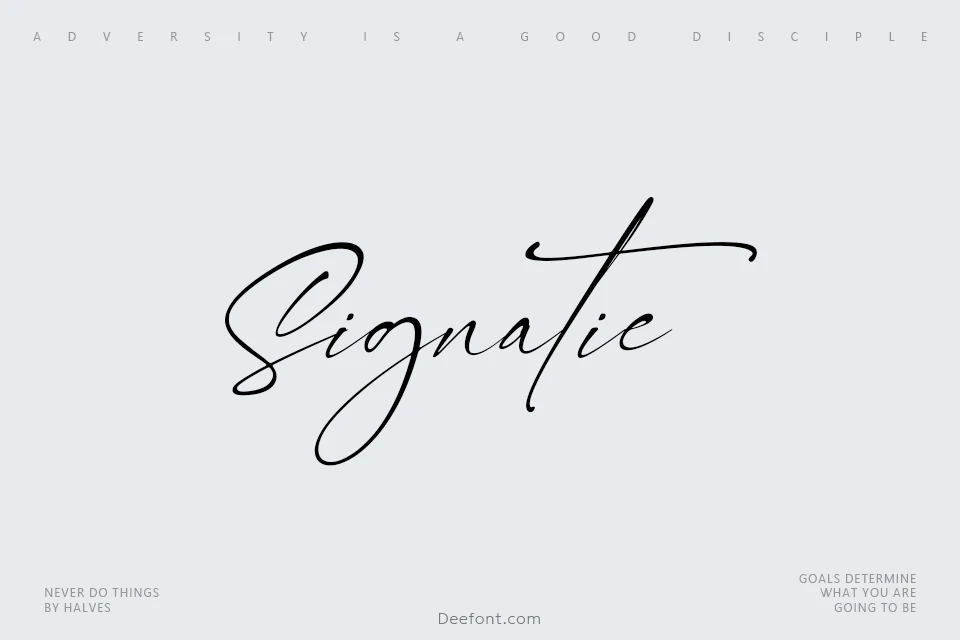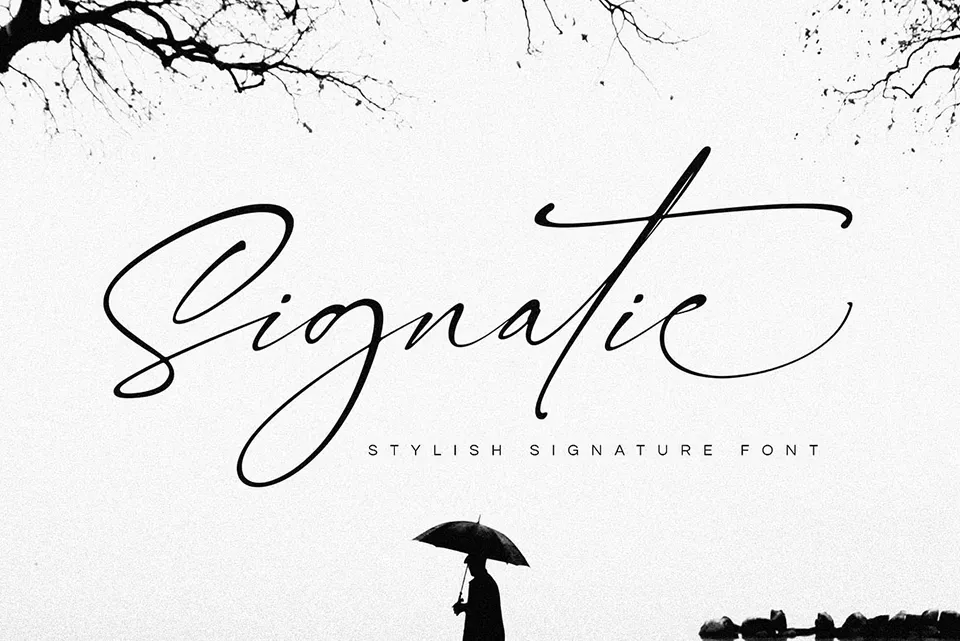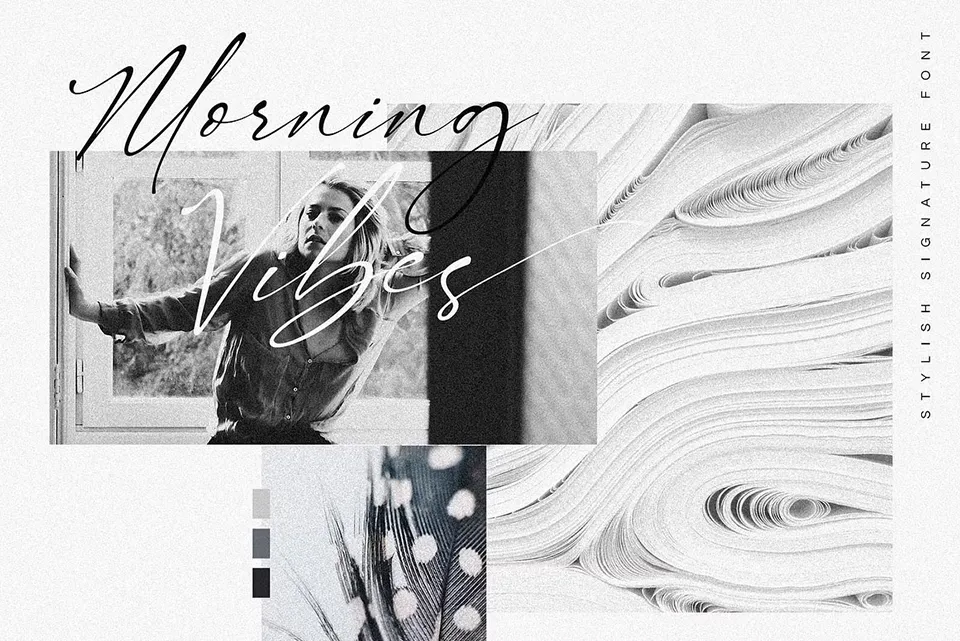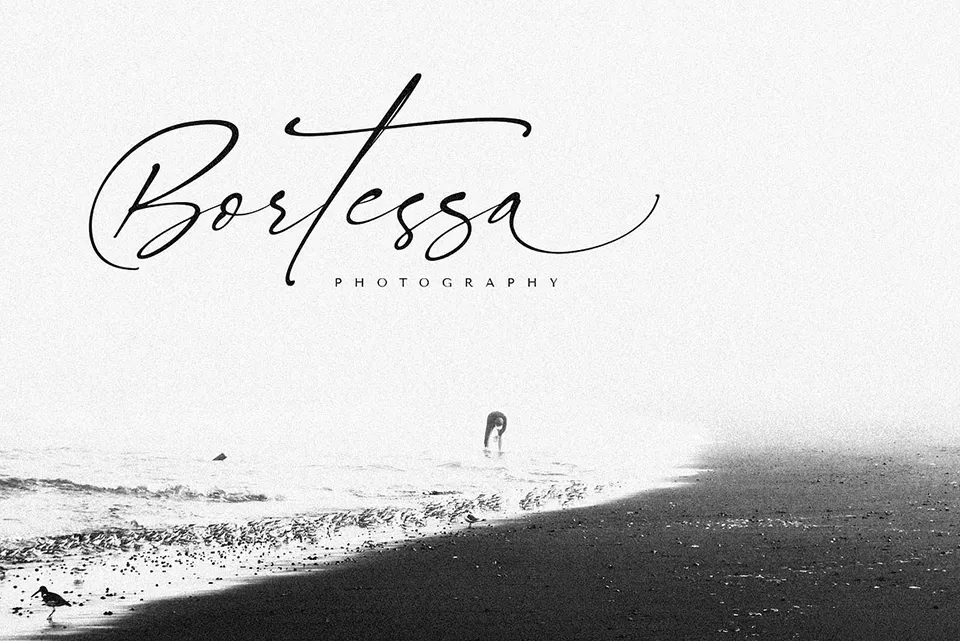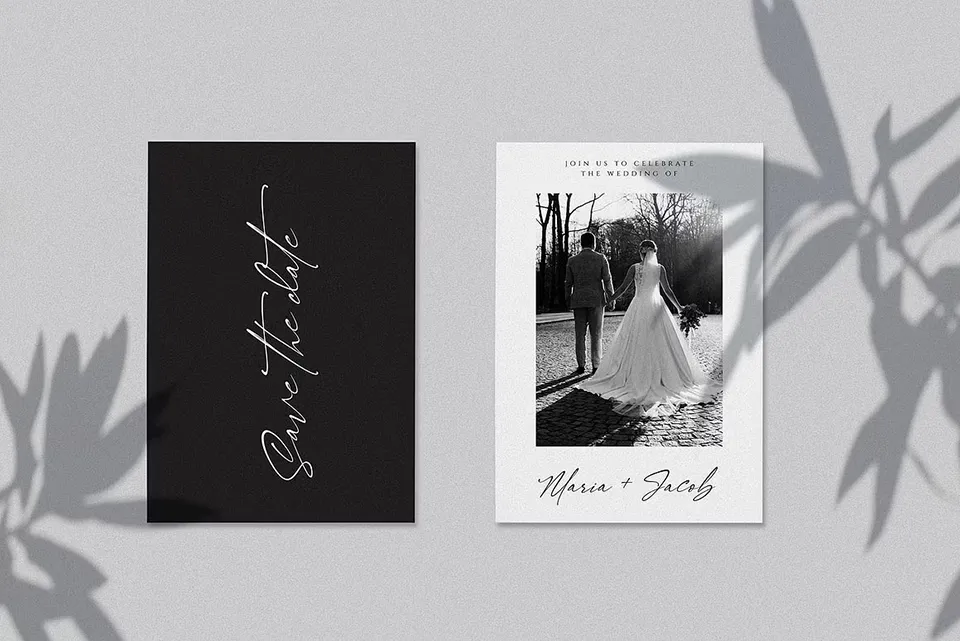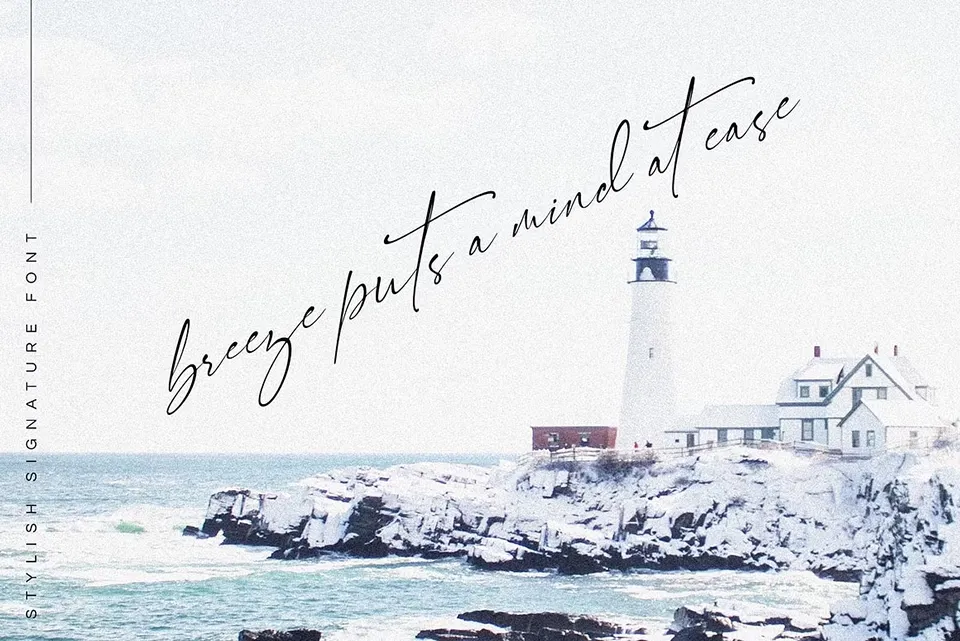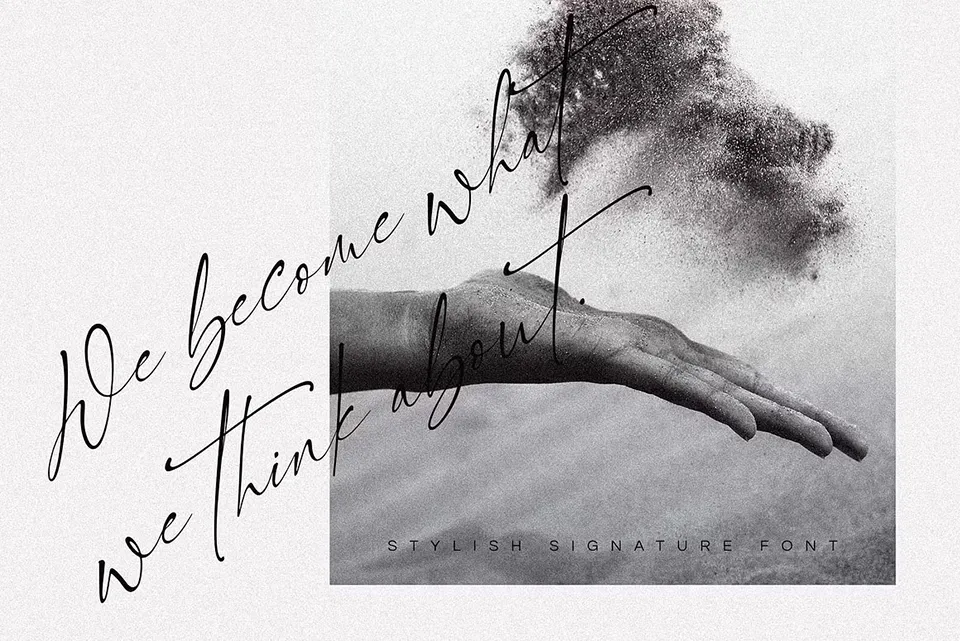
Signatie Signature Font
Signatie Signature Font is a stylish signature script font designed to bring elegance, chic, and modernity to your projects. It features uppercase and lowercase letters, numbers, punctuation, symbols, ligatures, and multilingual support. Perfect for logos, invitations, stationery, wedding designs, social media posts, advertisements, business cards, flyers, clothing, product packaging, labels, photography, watermarks, and special events, Signatie Signature Font delivers a sophisticated handwritten look ideal for creative professionals.